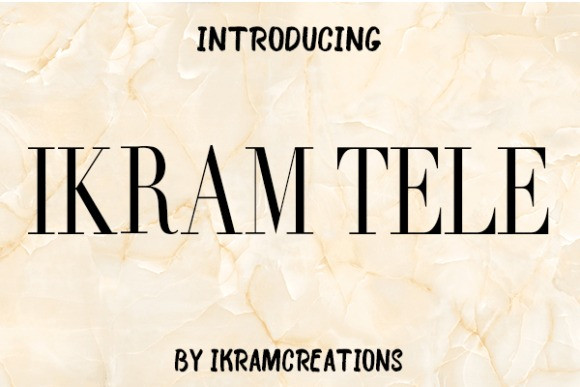
Ikram Tele Font
Designer: IkramCreations
Ikram Tele Font is the best choice for creating eye-catching logos, branding, and quotes. Every letter has a unique and beautiful touch, which will make your design come alive!